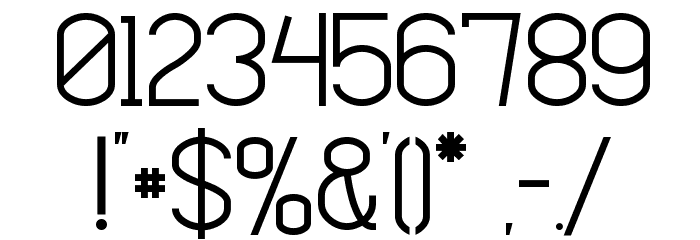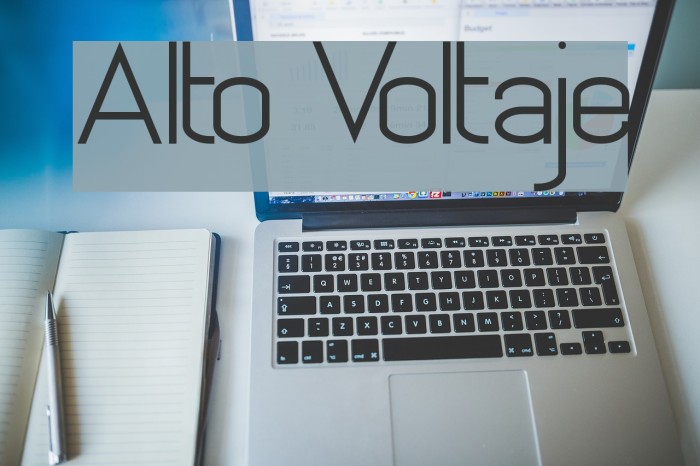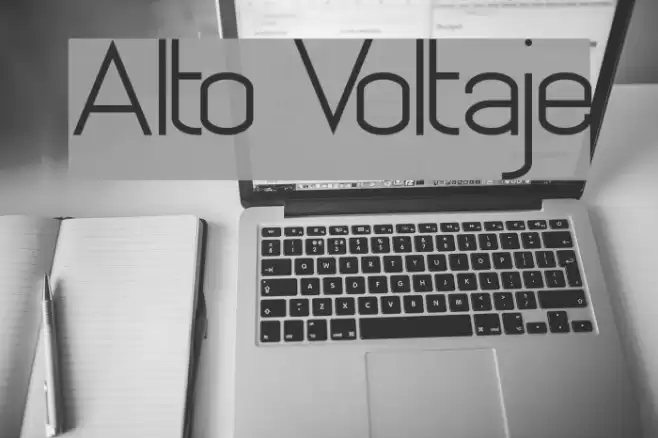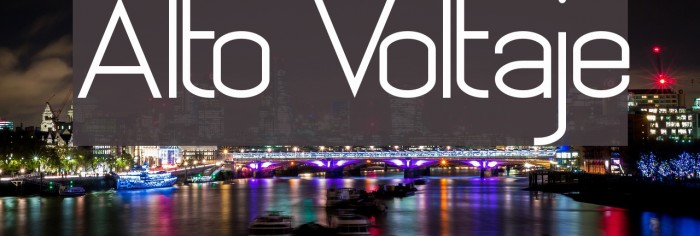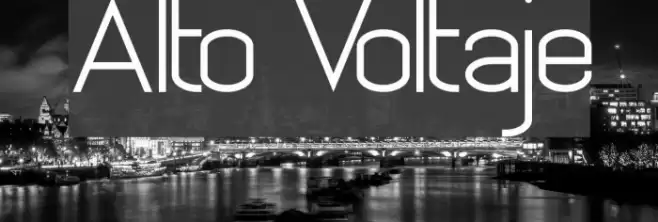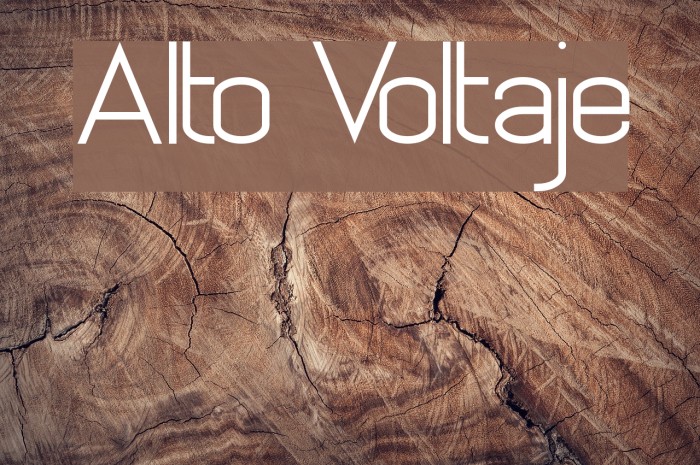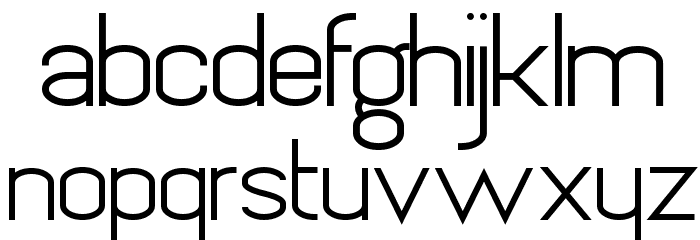
Alto Voltaje Font
This font features a modern and sleek design with clean, geometric lines and a sans-serif style. The characters are uniform in width, providing a balanced and harmonious appearance. The uppercase letters are tall and slightly narrow, while the lowercase letters maintain a consistent height, enhancing readability. The numerals are clear and distinct, making them suitable for various applications. Special characters are well-defined, adding versatility to the font's use. Overall, it exudes a contemporary and professional feel, ideal for digital and print media.
A modern, geometric sans-serif font with clean lines and uniform width.
• Proposed Projects: Ideal for branding, digital interfaces, advertising, and editorial design.
• Category: Sans-Serif
• Overall Style: Modern
• Use Case: Headlines, Body text, Logos